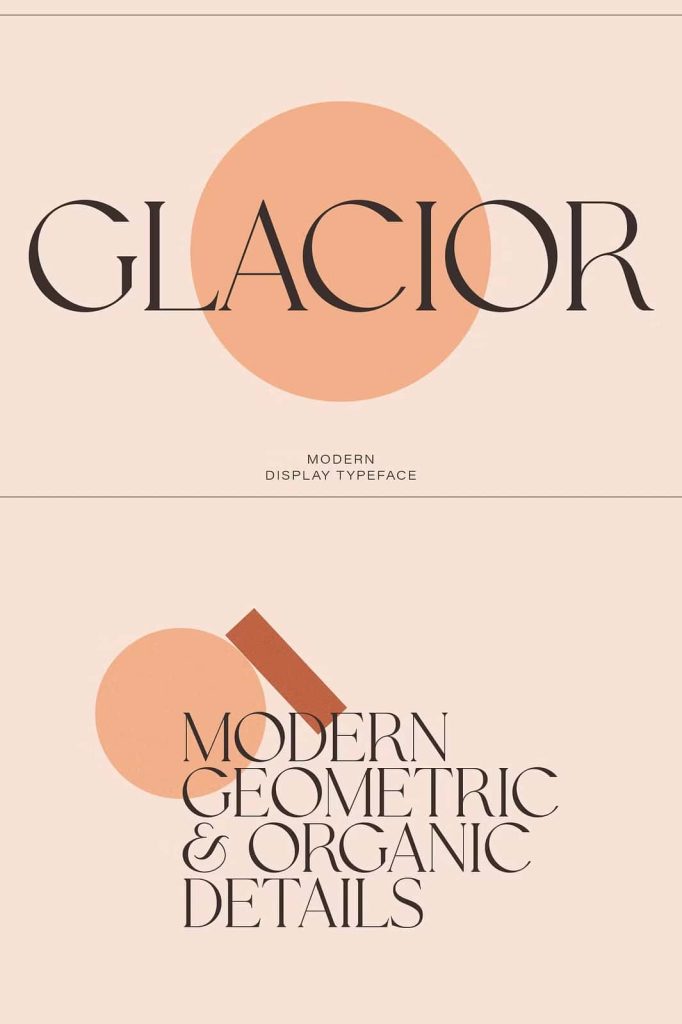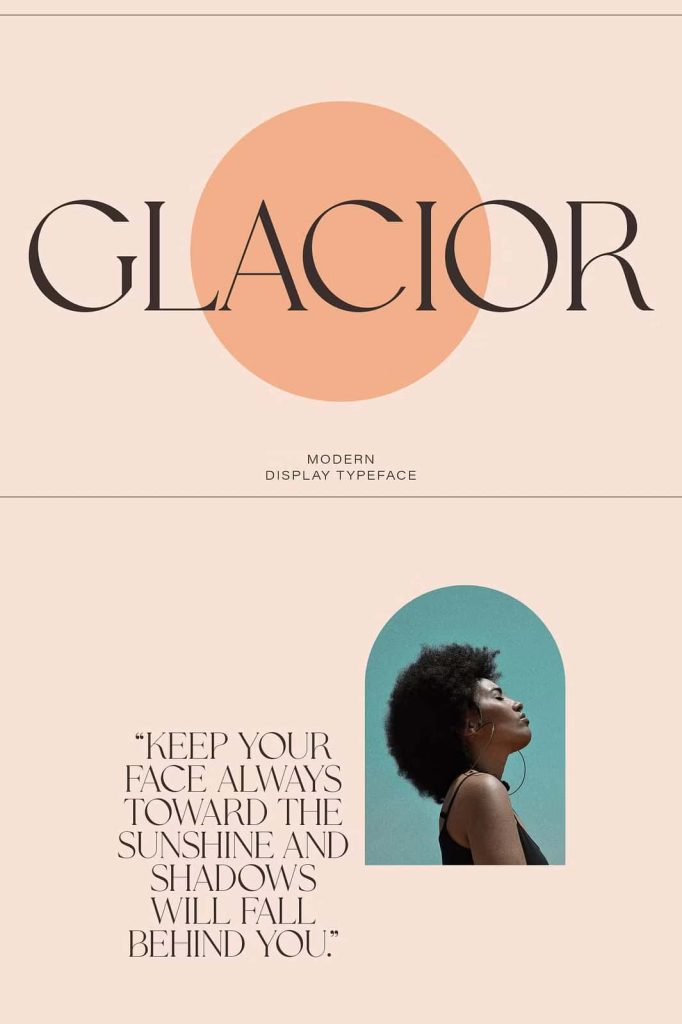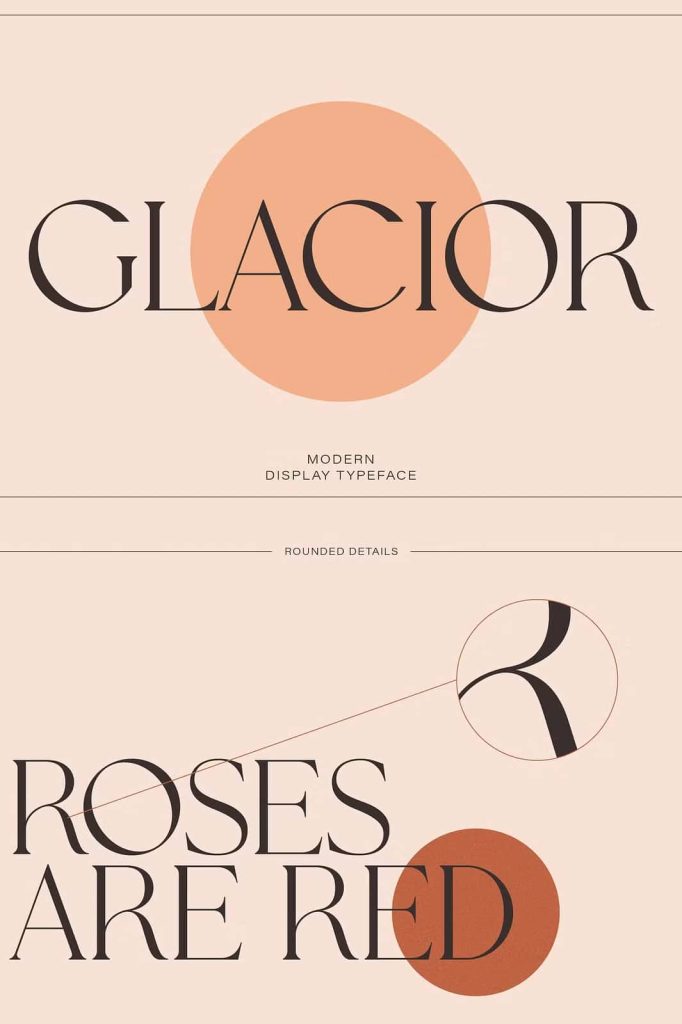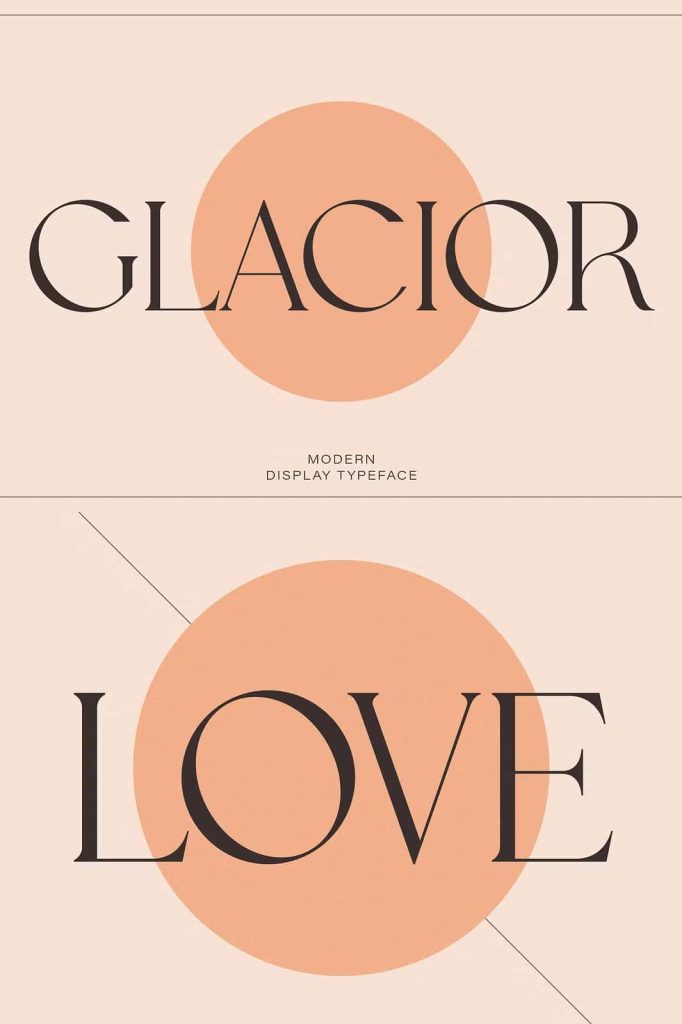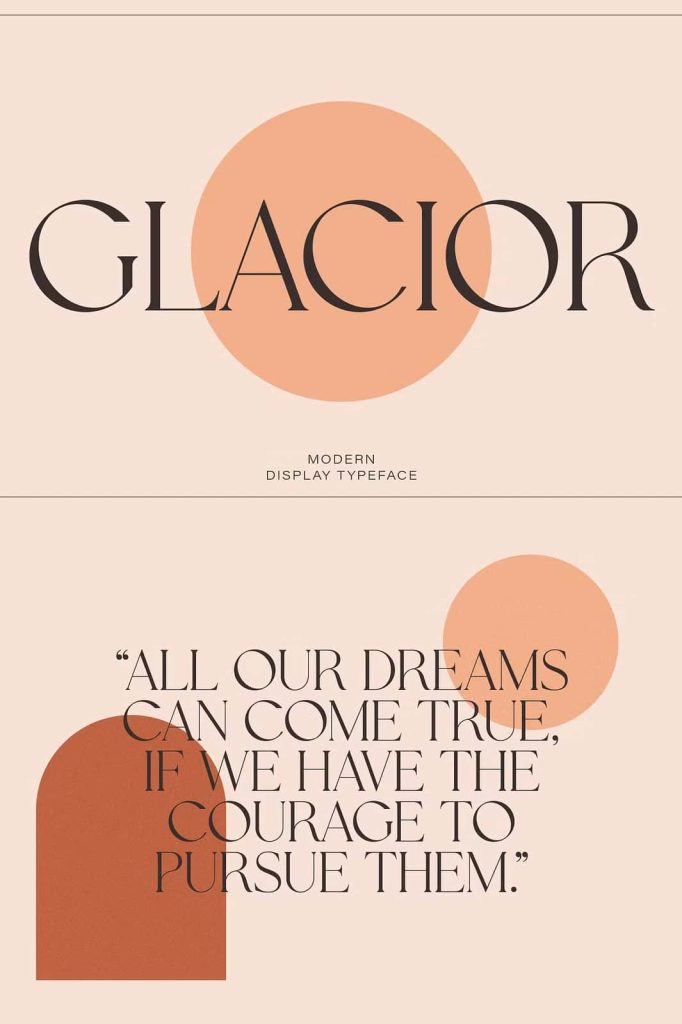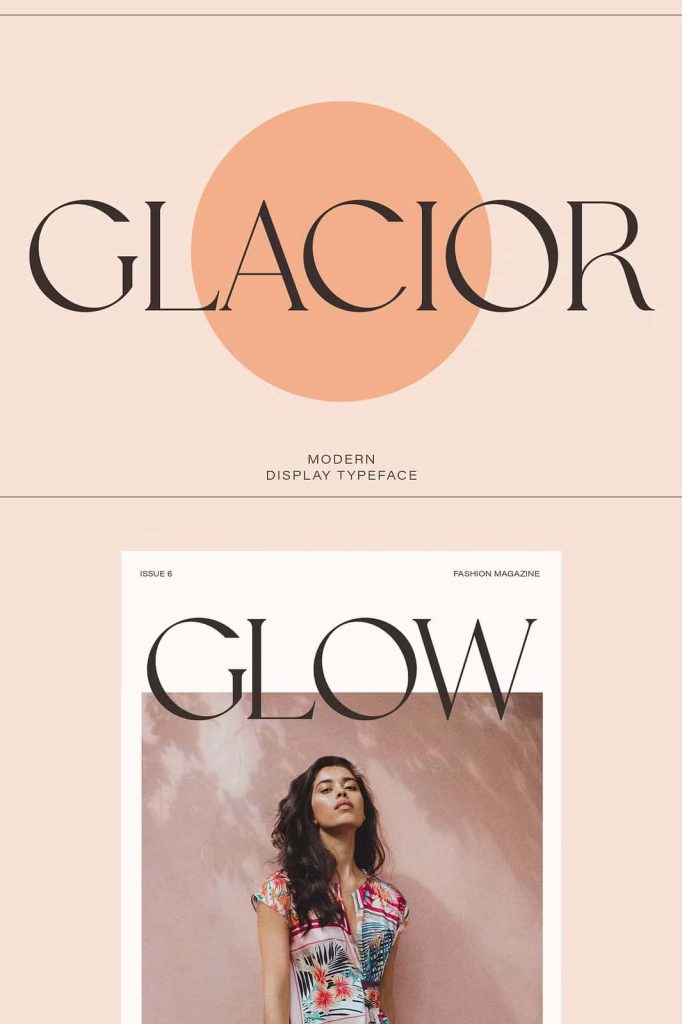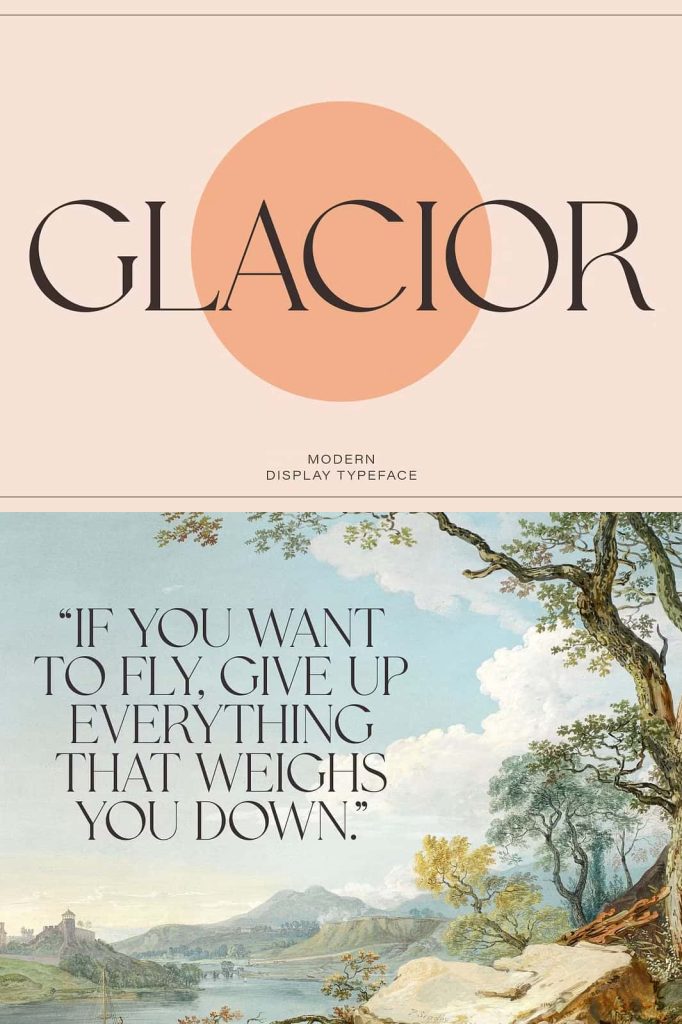
Glacior – Modern Display Serif FontleastedMarch 19, 2025Fonts Glacior is a modern display serif font, blending minimalist and classic design. Download